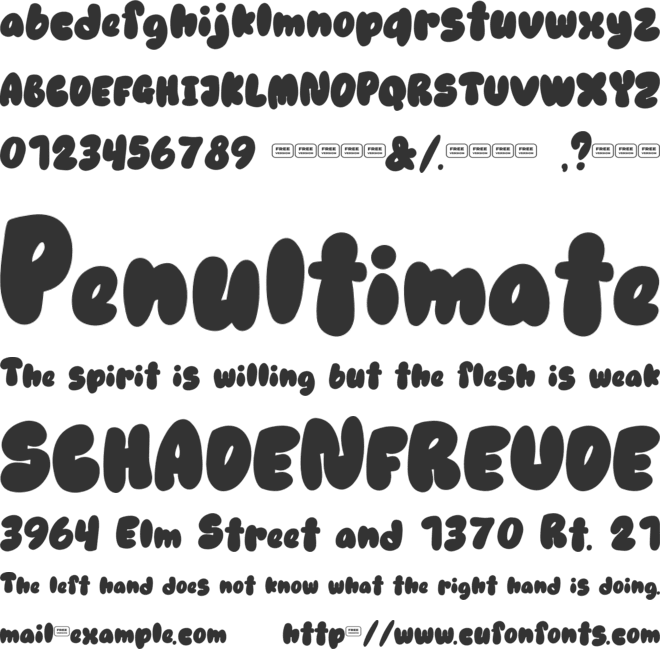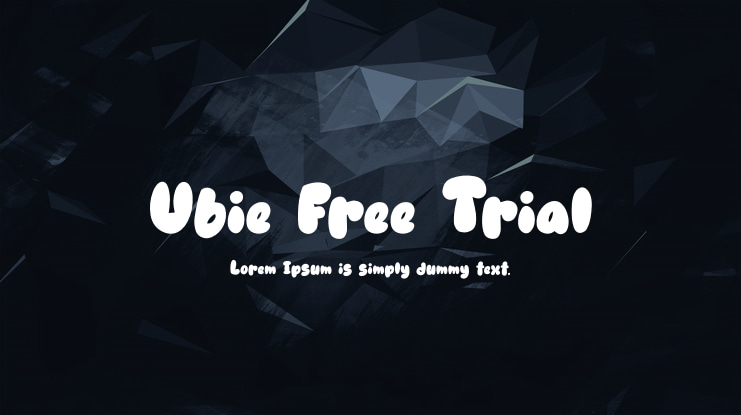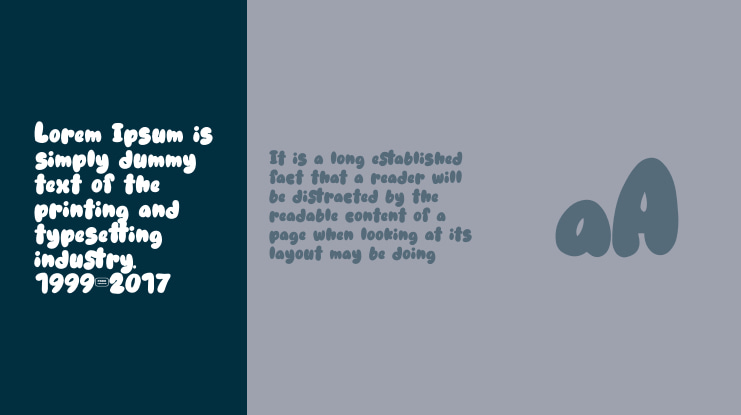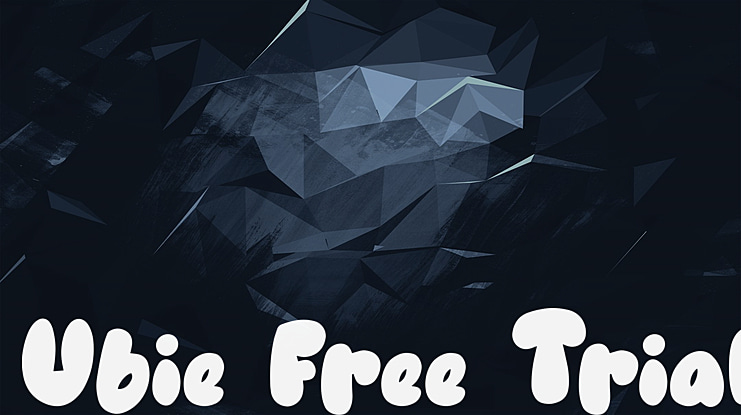
Ubie Free Trial Font
Ubie is a fun and bold display font.
Whether you’re using it for crafting, digital designing, presentations or greeting cards making, gift card, birthday invitation,  it’s perfect!